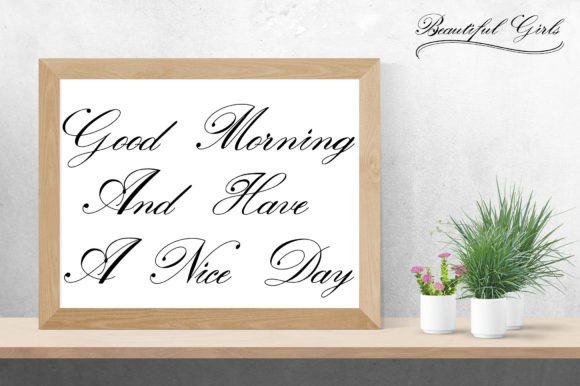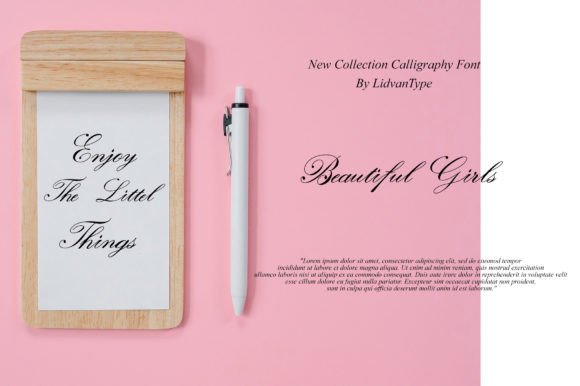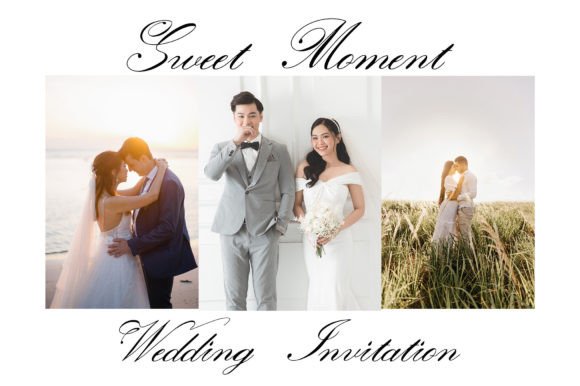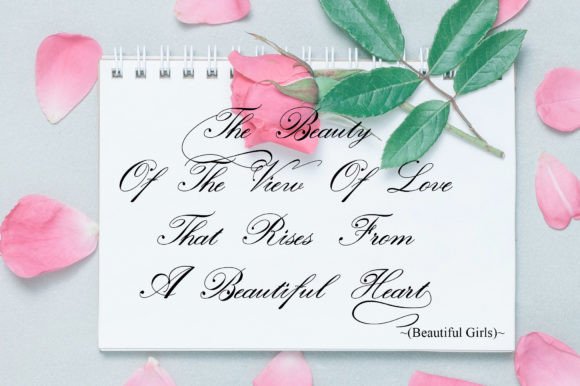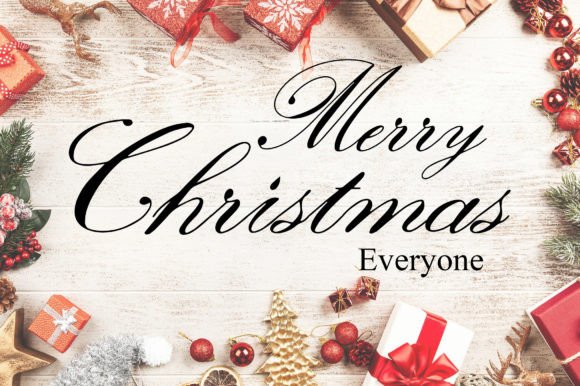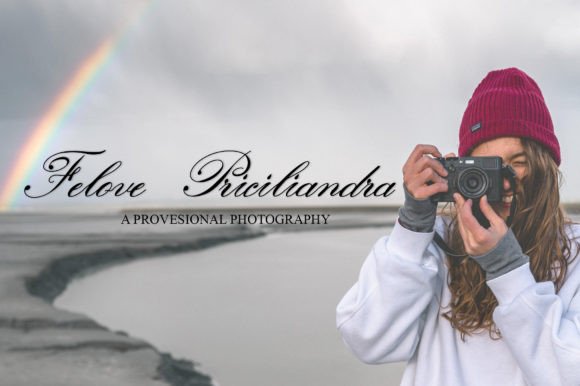
Introduction to Beautiful Girls Font
Beautiful Girls is a beautiful handwritten font.
Trendy and stylish, this font will enhance any of your creations to be more elegant and glamorous It is the best choice for creating attractive logos, branding, and quotes.
Beautiful Girls Font offers exceptional quality and versatility, making it a valuable addition to your design toolkit. Whether you’re creating for personal projects or commercial use, Beautiful Girls Font delivers professional results.